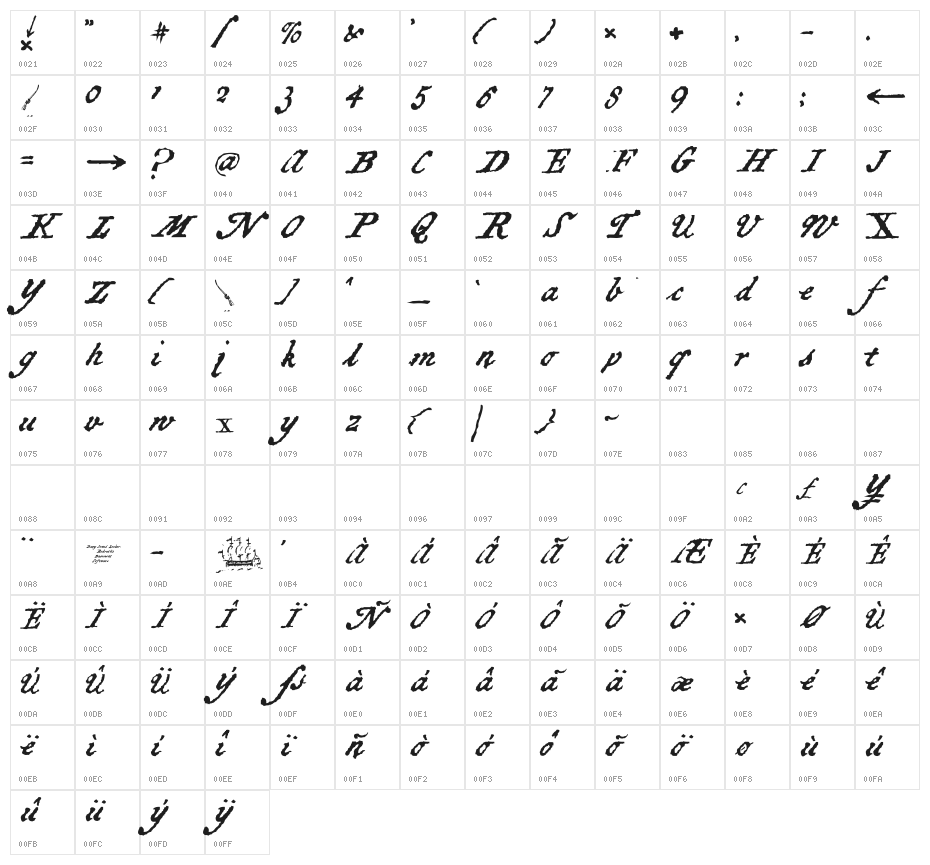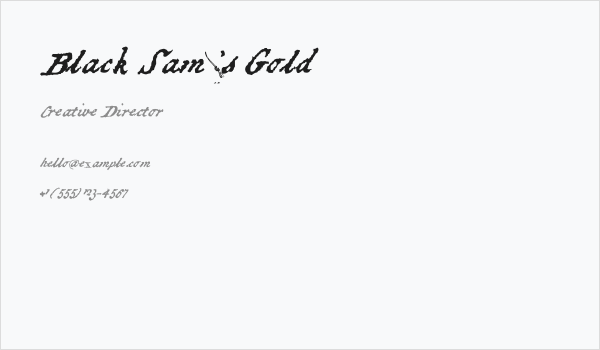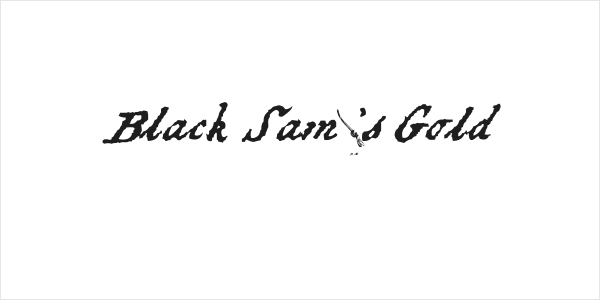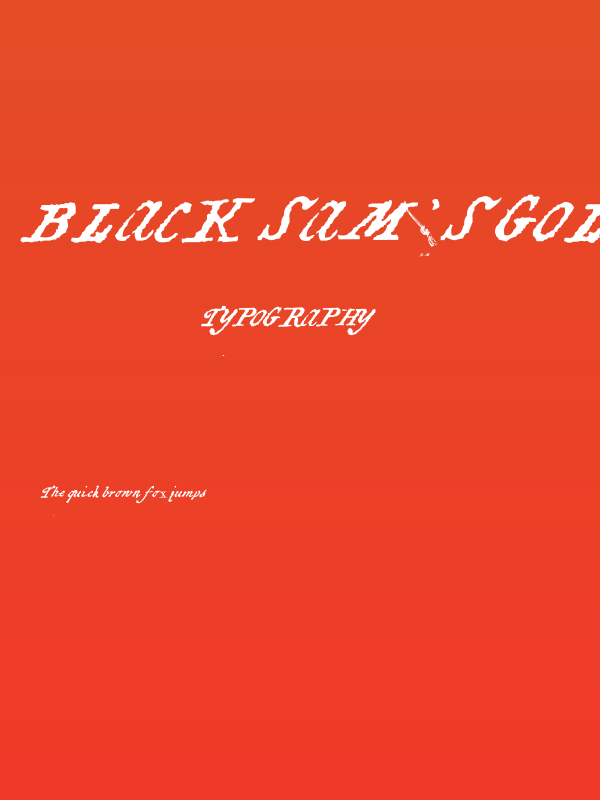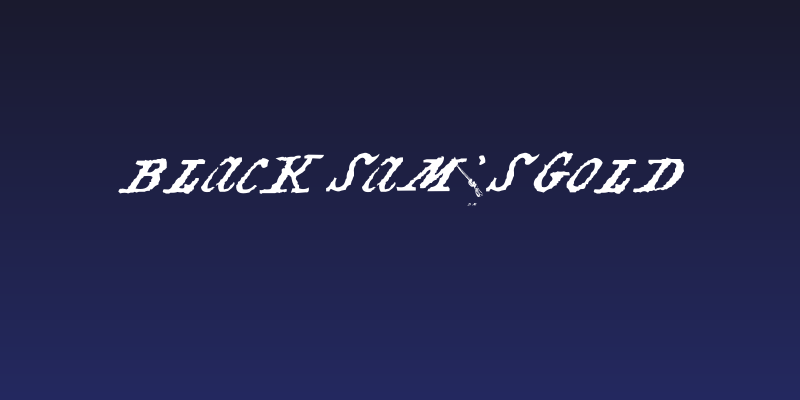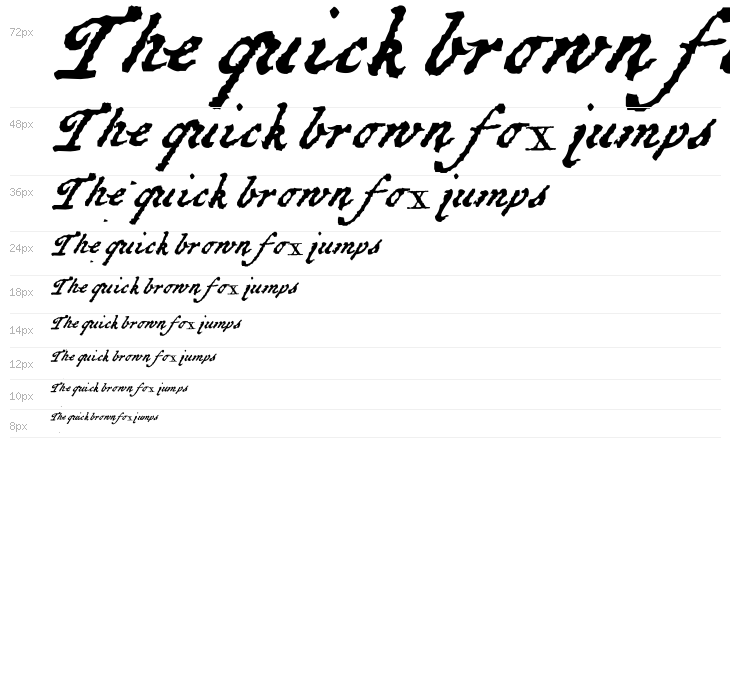
Black Sam's Gold Font
Black Sam's Gold Description
This font features a bold, expressive style with a handwritten appearance, characterized by its flowing, cursive strokes. The uppercase letters are slightly slanted, giving a dynamic and energetic feel, while the lowercase letters maintain a consistent, fluid motion. The numerals and special characters are equally bold, ensuring readability and maintaining the overall aesthetic. The font's thick strokes and high contrast between thick and thin lines add to its dramatic and artistic flair, making it suitable for creative and decorative applications.